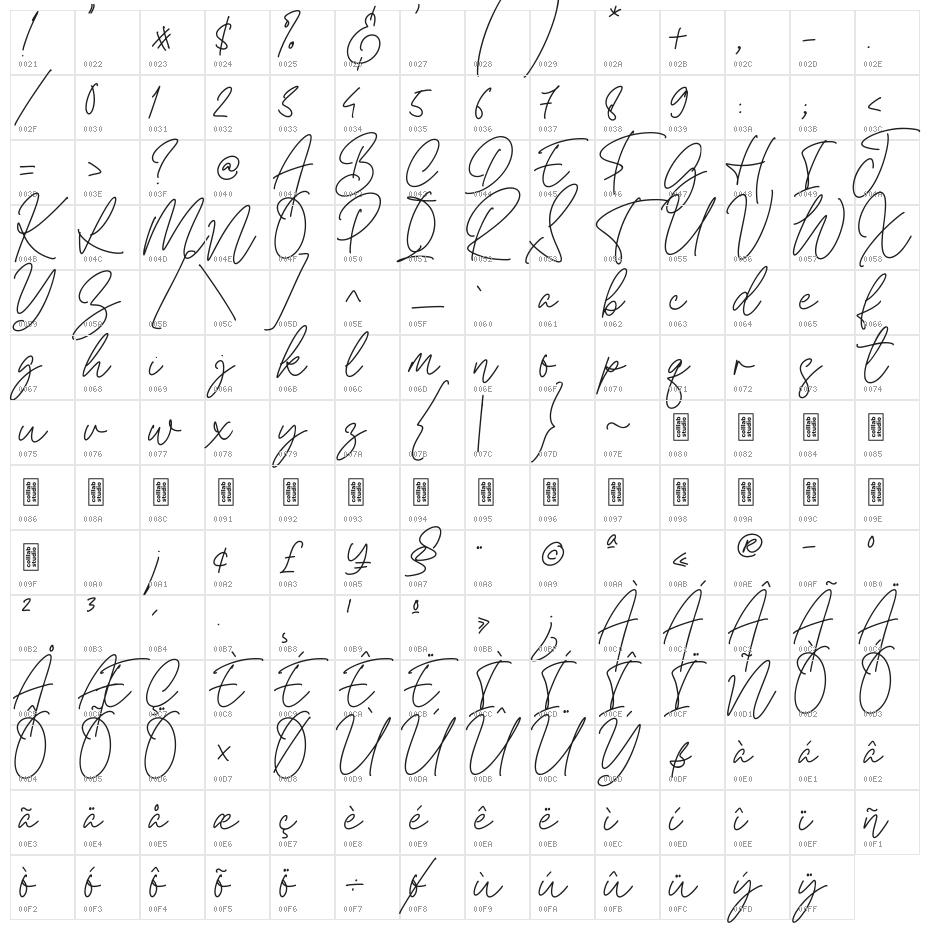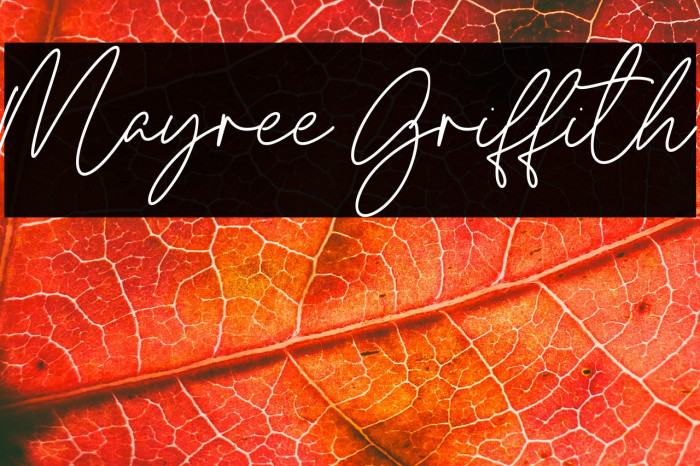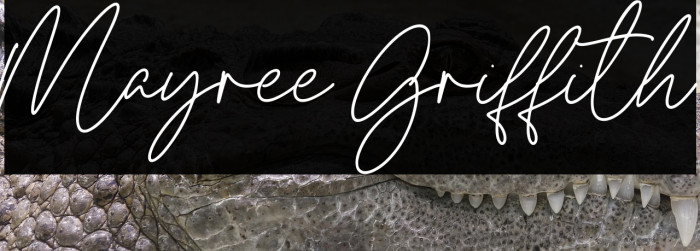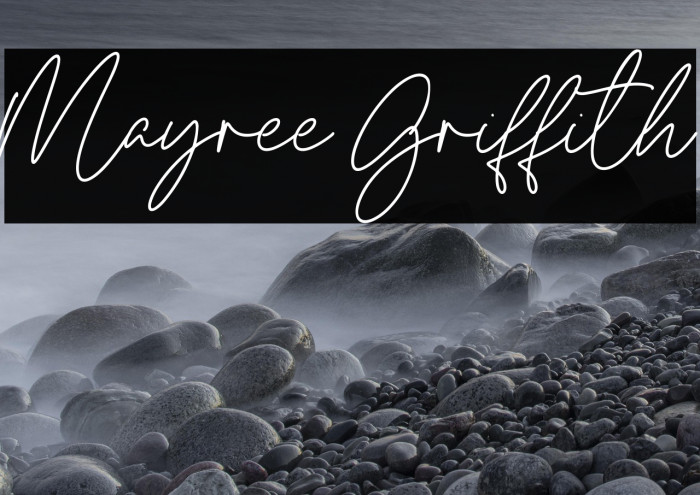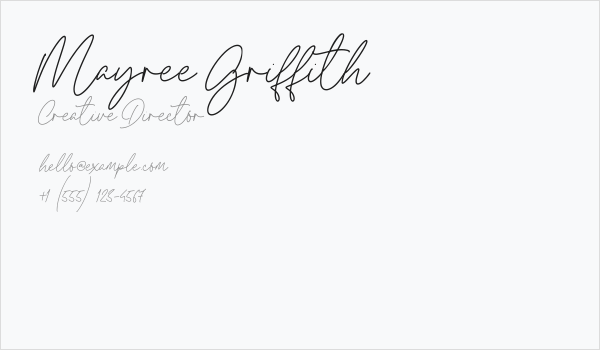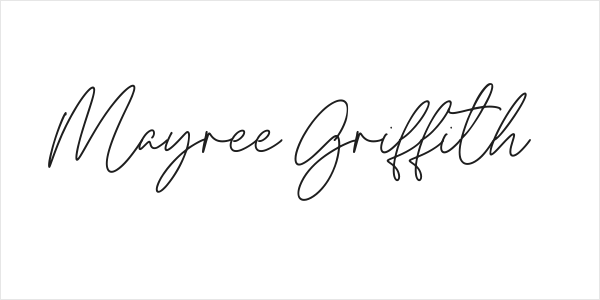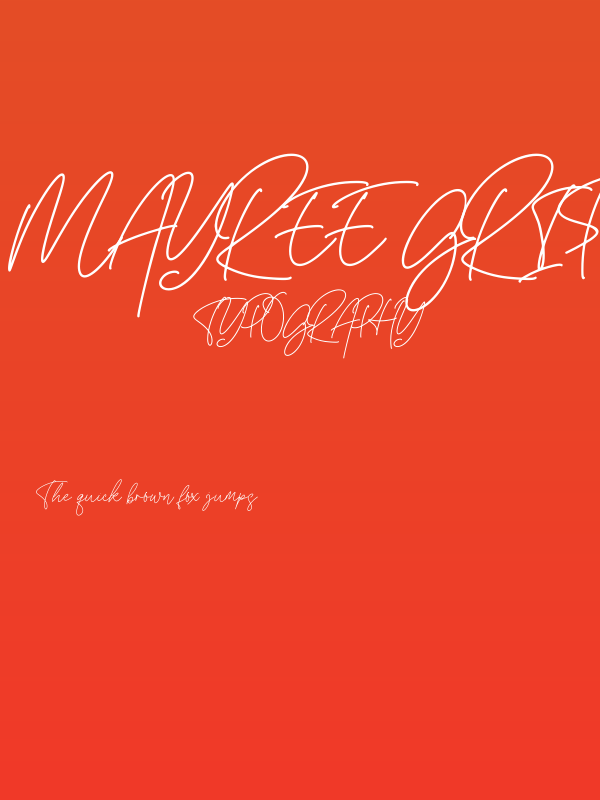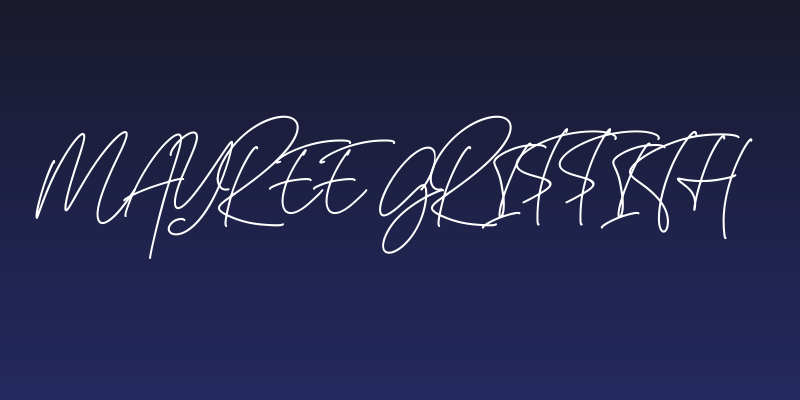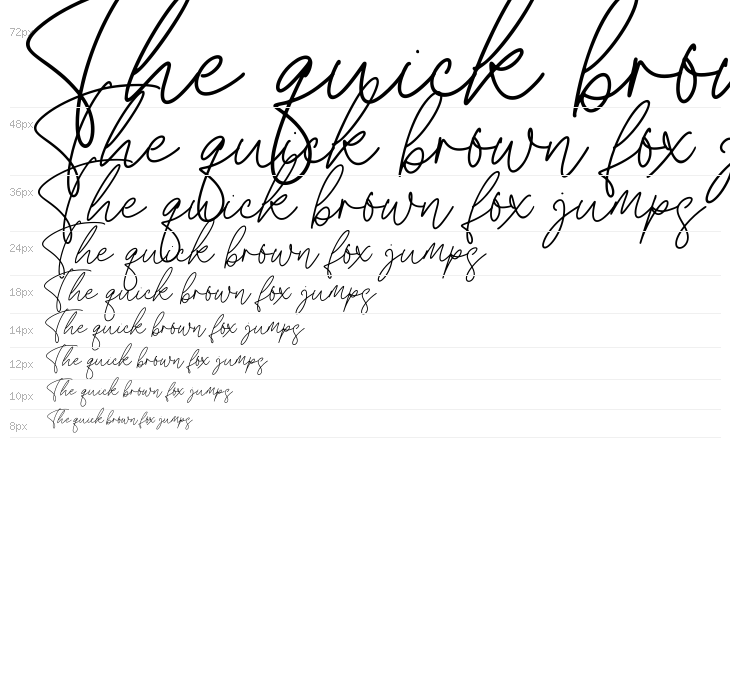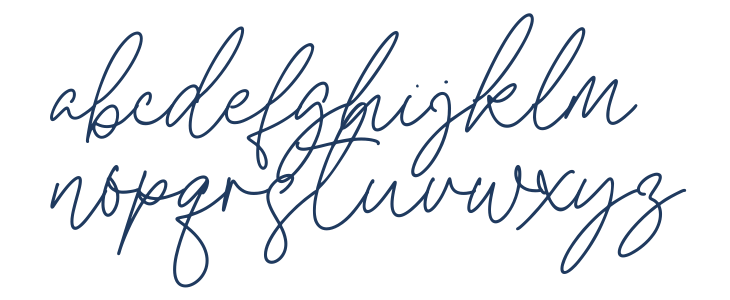
Mayree Griffith Font
Mayree Griffith Description
This font exhibits a dynamic and expressive handwritten style, characterized by its fluid and interconnected strokes. The letters are crafted with a natural flow, mimicking the spontaneous movement of a pen on paper. The uppercase letters are bold and prominent, while the lowercase letters maintain a consistent rhythm and elegance. The numerals and special characters are designed to complement the overall aesthetic, ensuring a cohesive look across all text. This font's unique charm lies in its ability to convey a sense of personal touch and creativity, making it ideal for projects that require a humanistic and artistic feel.
| Overall Style | Artistic and Personal |
| Use Case | Logos, Invitations, Creative Projects |
| Proposed Projects | Ideal for personal branding, creative invitations, artistic posters, and expressive social media graphics. |